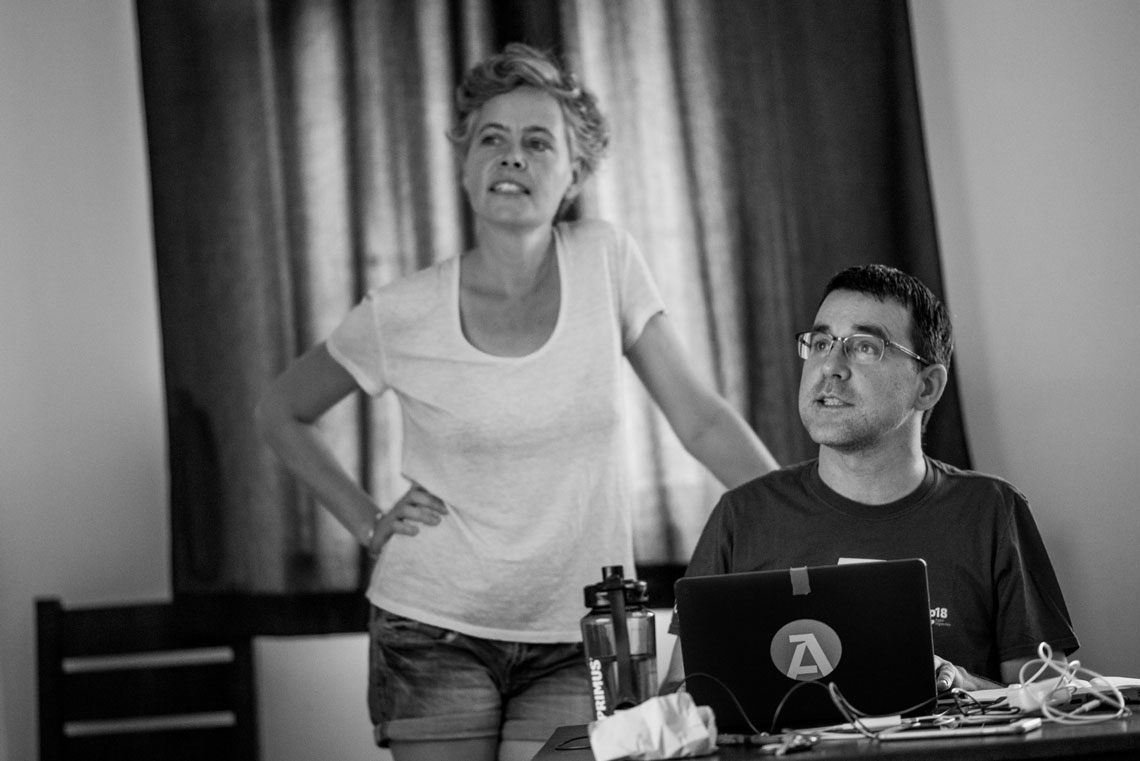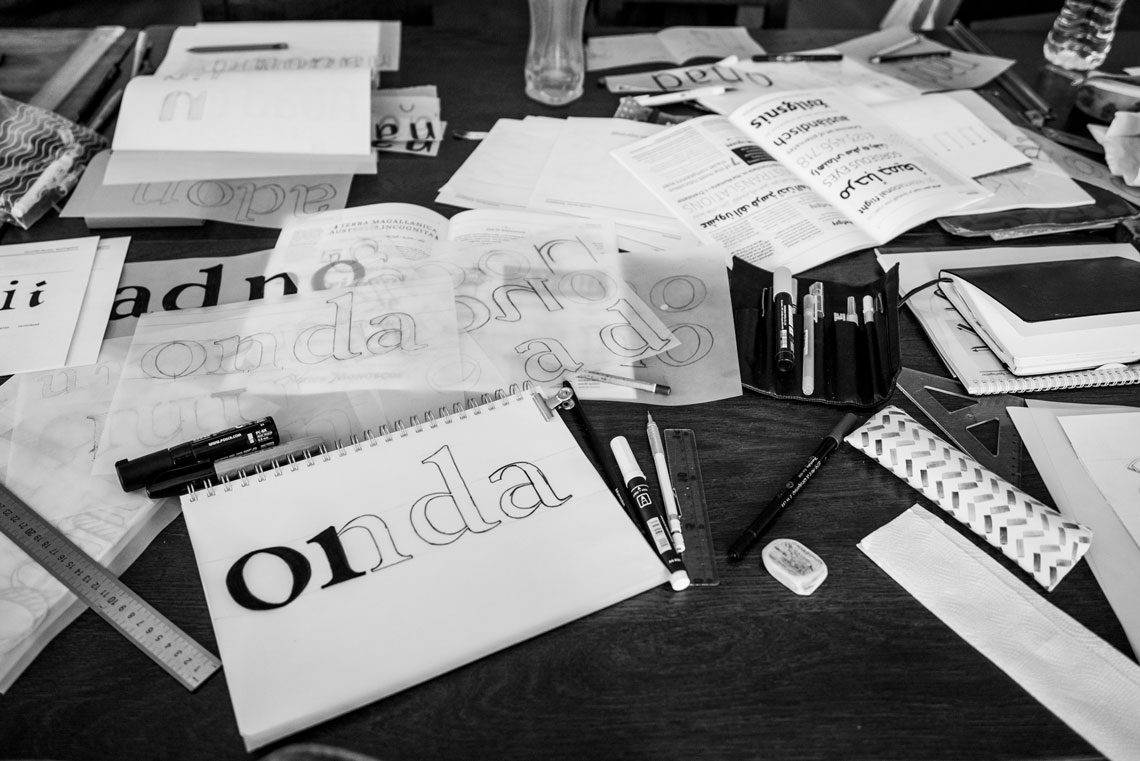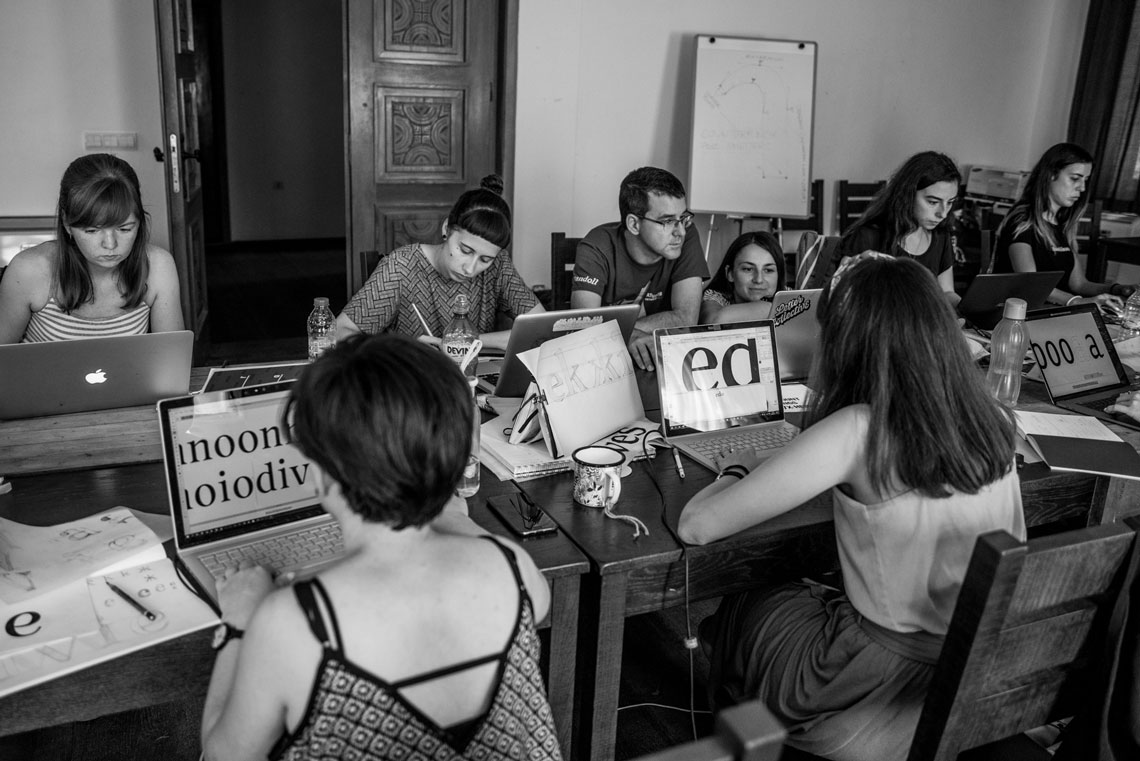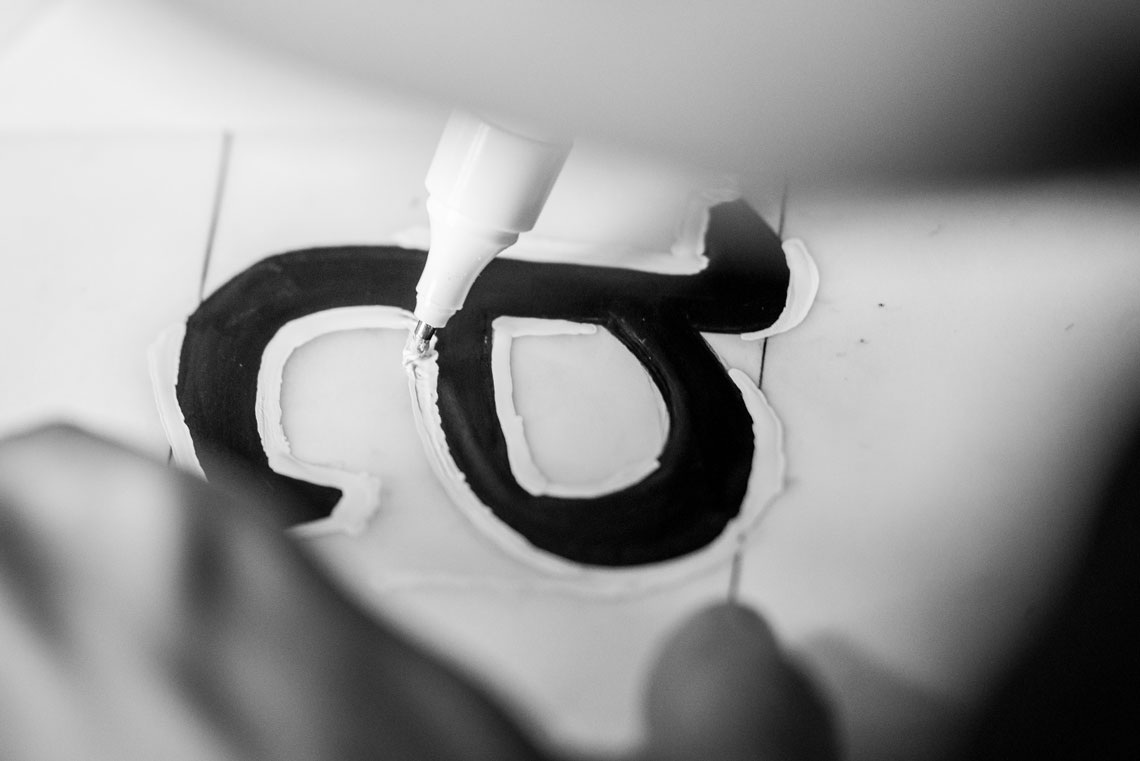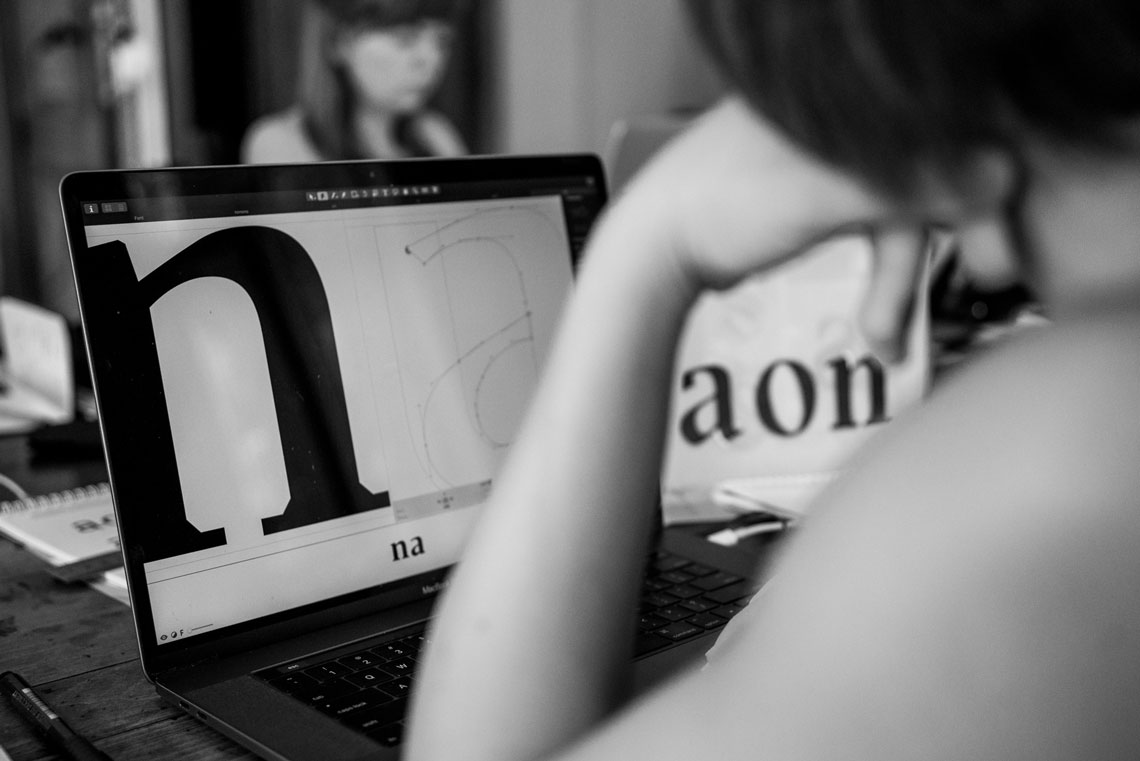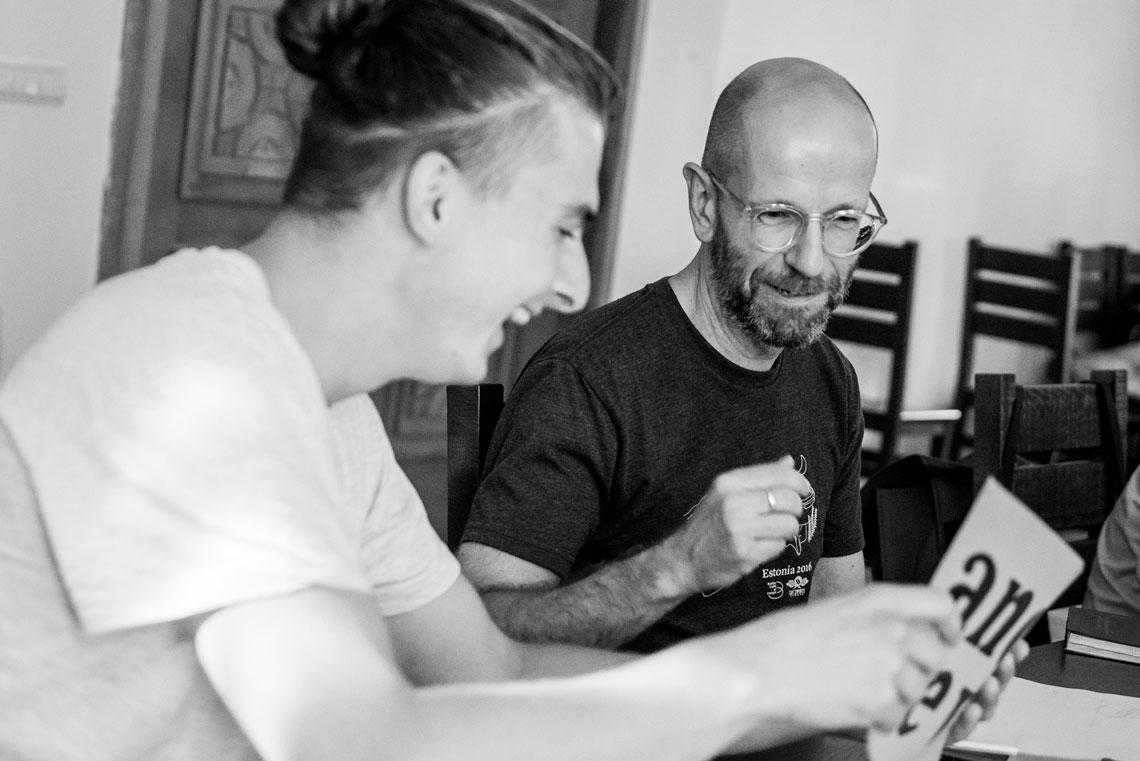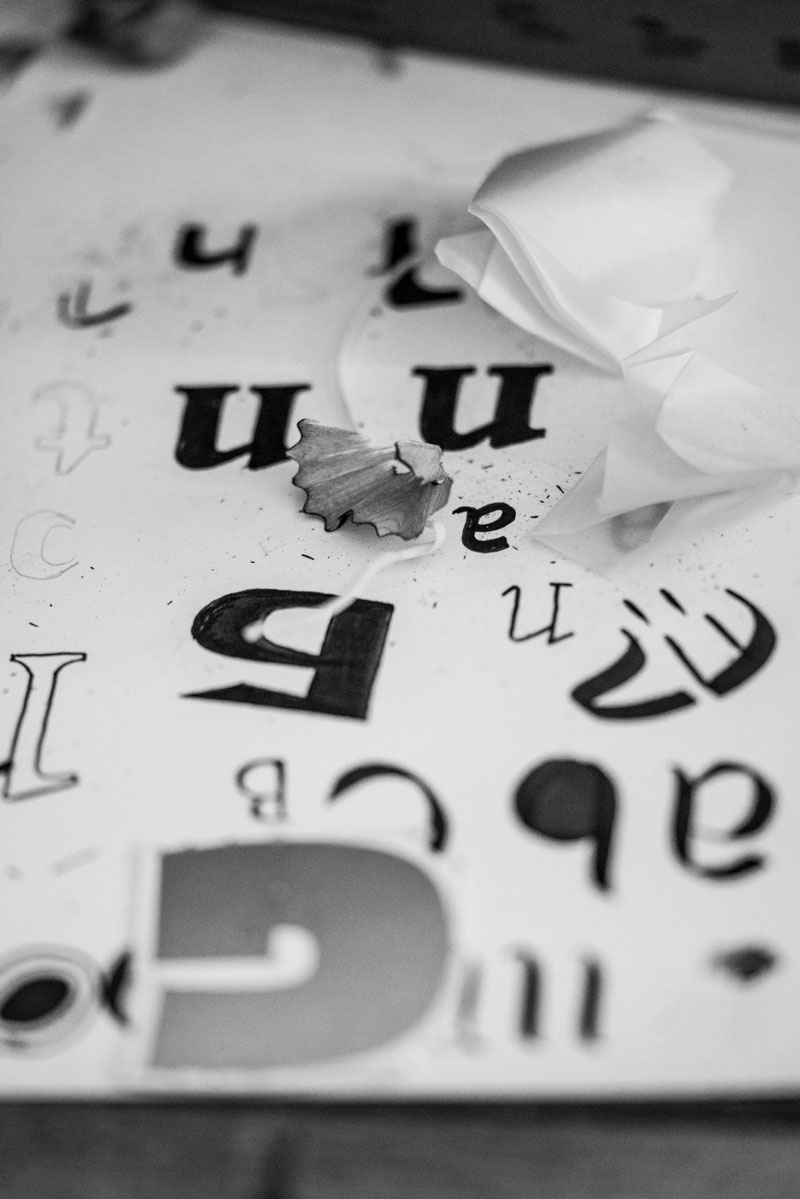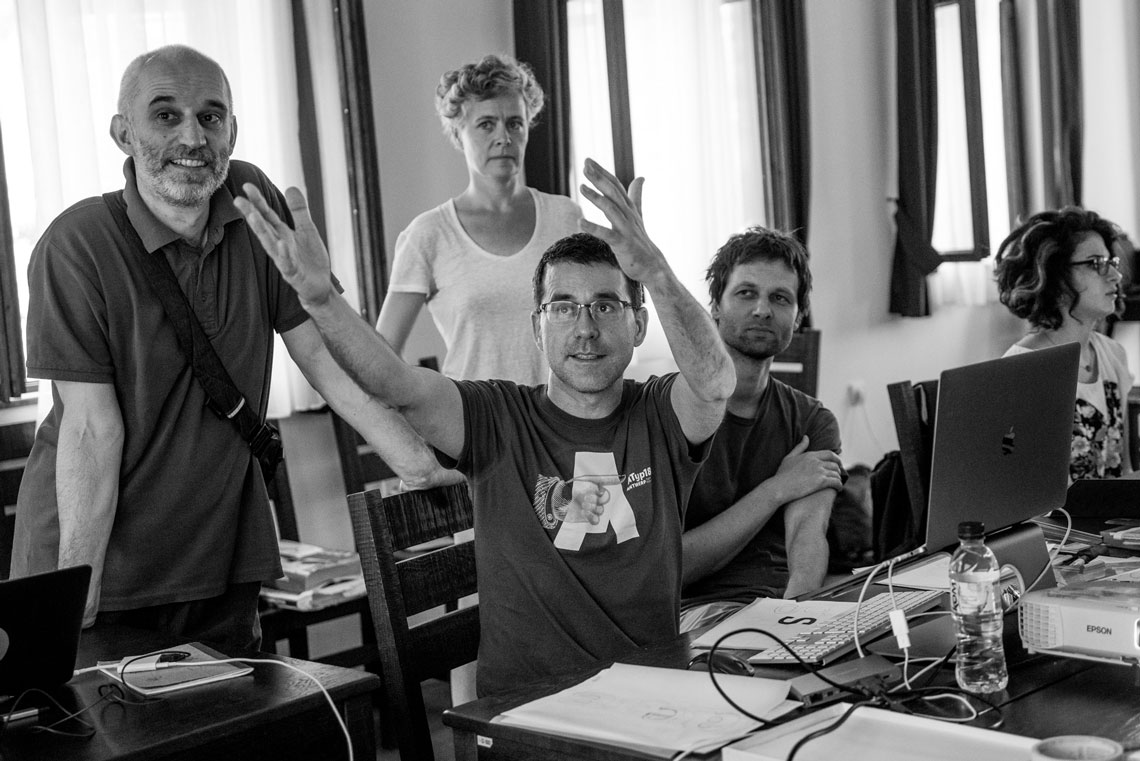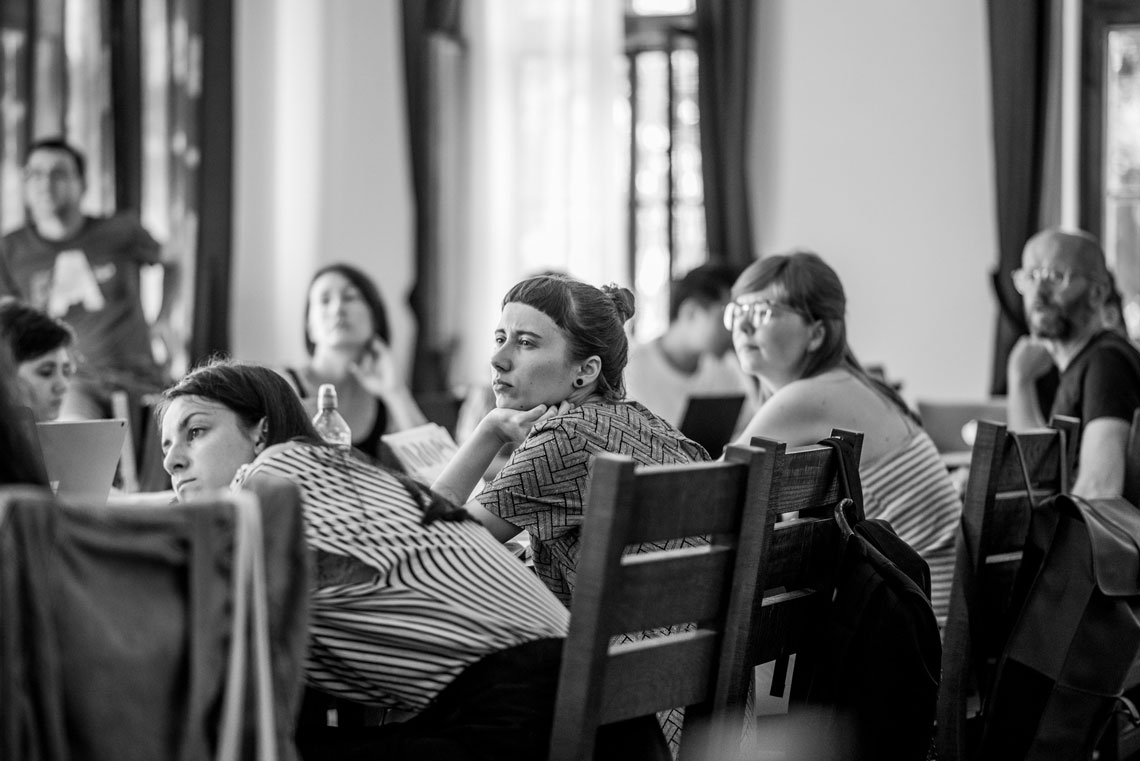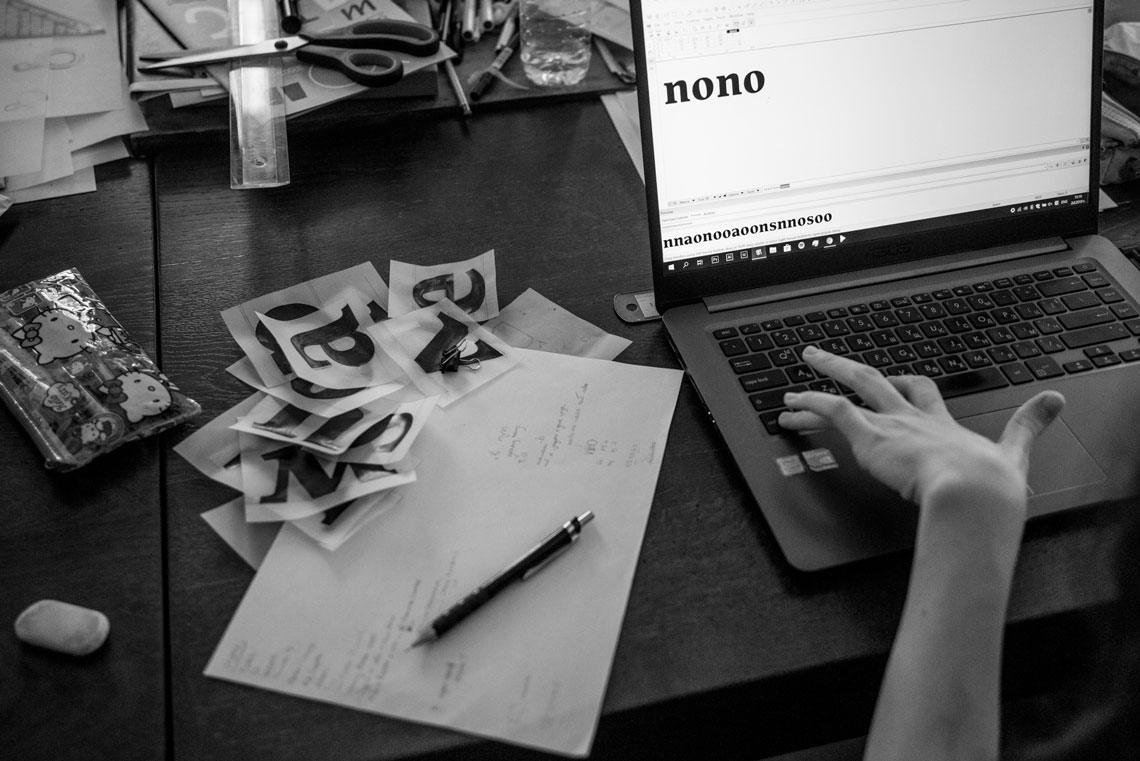
Typoclass 2019
Veronika Burian gave a five-day workshop for the third edition of Typoclass. During this intensive in rural Bulgaria, she provided basic methodology and theoretical knowledge about typeface design.
For the third time, teacher and typophile enthusiast Boril Karaivanov organised a ten-day workshop in the idyllic UNESCO-heritage village of Bozhentsi, Bulgaria. Boril’s educational efforts in typography are also known through the biennial festival Typofest taking place in Plovdiv & Sofia.
In 2019, he invited Veronika Burian and Erich Rainer Scheichelbauer to lead the workshop in digital typeface design. Far away from city noise and distractions, Veronika started the programme with some analogue exercises to get the students into sketching on paper and exploring their own ideas based on some given parameters. From there the class fine-tuned a small set of control characters on paper and slowly moved to digitising. Little interruptions in form of water-melon snacks and delicious cookies by the local sweets shop were welcomed as a way to relax and re-focus.
Short lectures on best practice letter-drawing, legibility, methodology of spacing/kerning techniques, and the design of diacritics accompanied Veronika’s hands-on guidance during the five days. At the beginning of the workshop students had to select their favourite letter, either from the Latin or Bulgarian alphabet, and draw it in the same design as their control characters. The reason being that, as a final task, students were asked to go back analogue and create an artistic interpretation of their favourite letter. Some of the results were wonderfully ingenious.
Rainer was kind to spend some hours during those five days helping out with technical matters and providing another pair of eyes and opinion for the students. After a one-day break most of the participants continued into the second week of full-on tech geekiness with Rainer and the Glyphs program for designing typefaces.